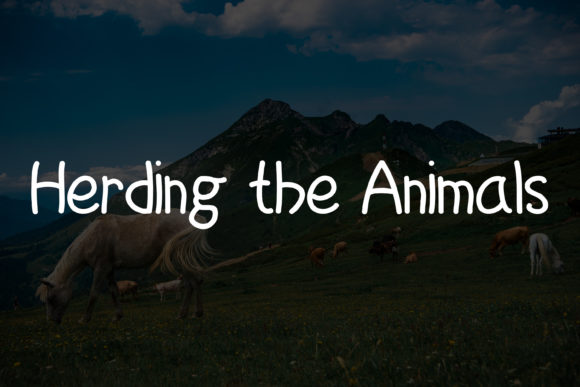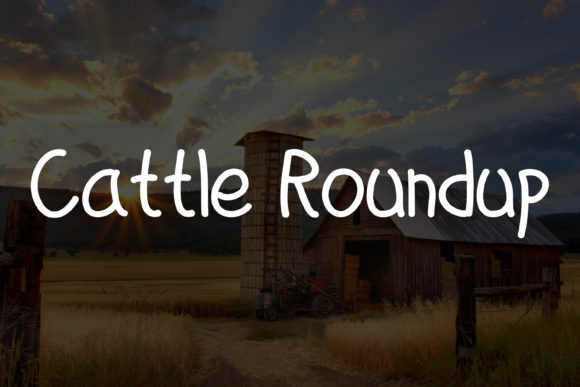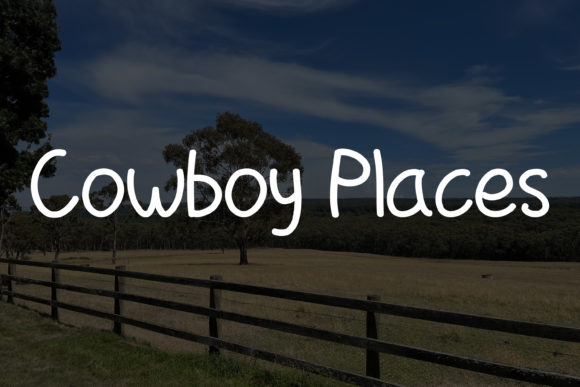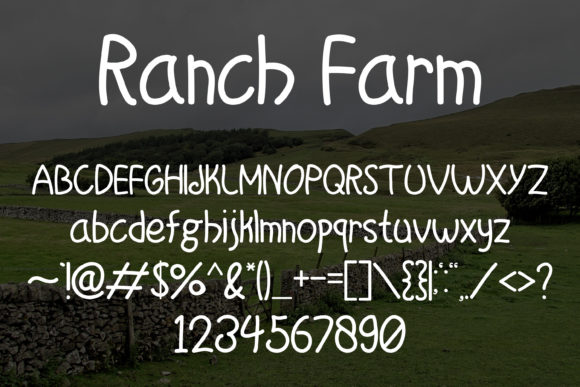
Ranch Farm Font
About Ranch Farm Font
Ranch FarmĀ is a simple and quirky handwritten font that can be used for all chalkboard quotes or teaching material! Its authentic look and feel will add a personal and realistic feel to your designs.